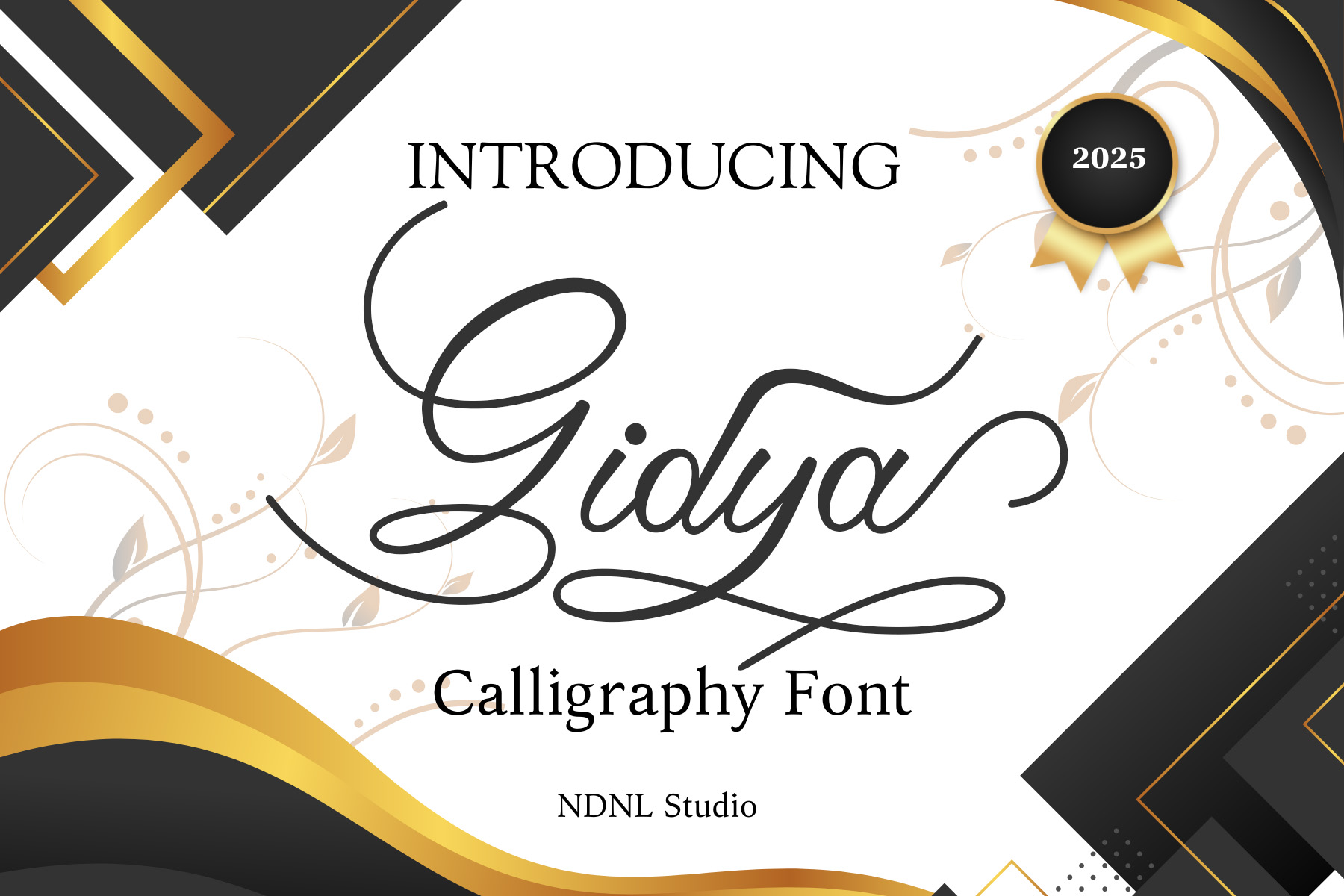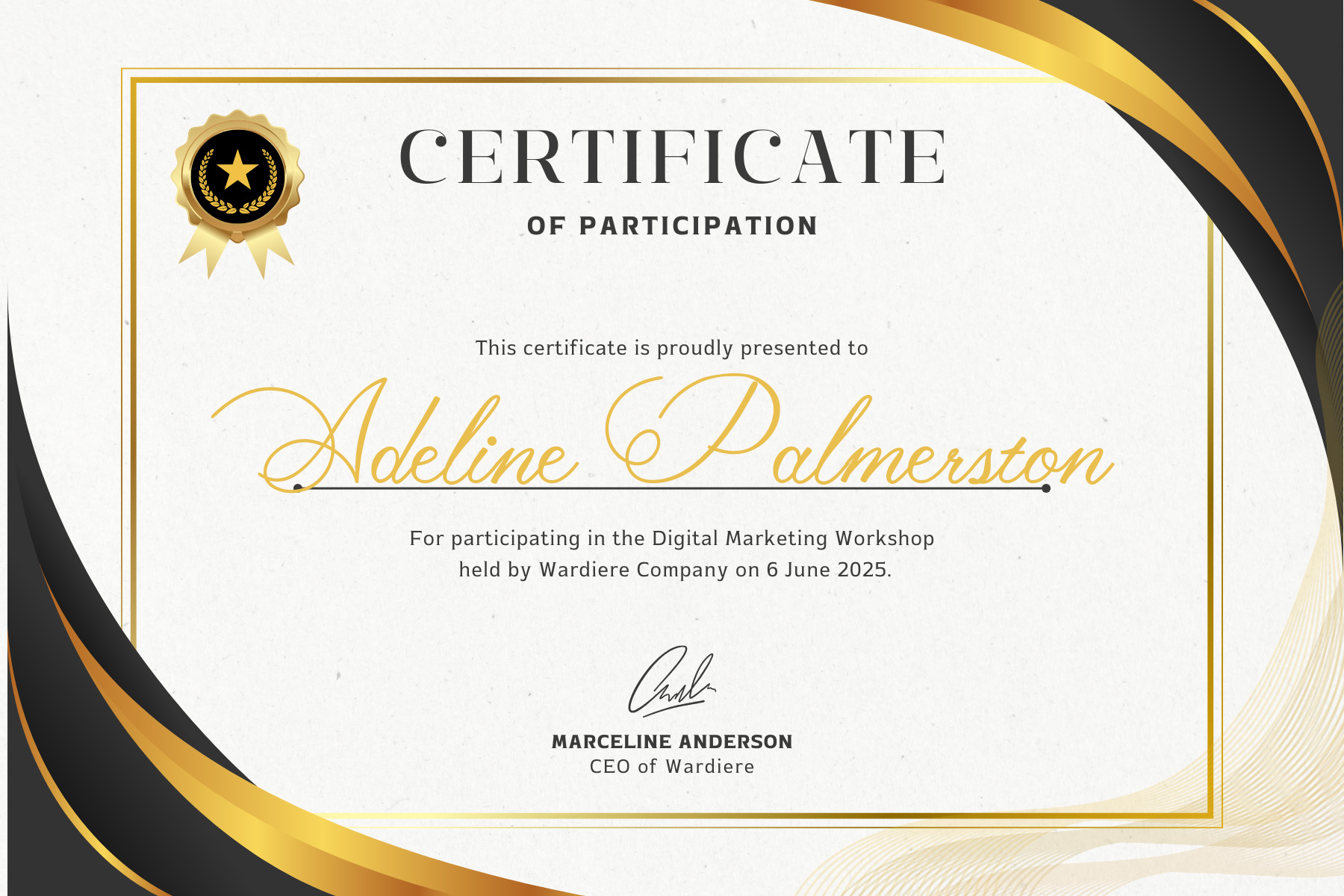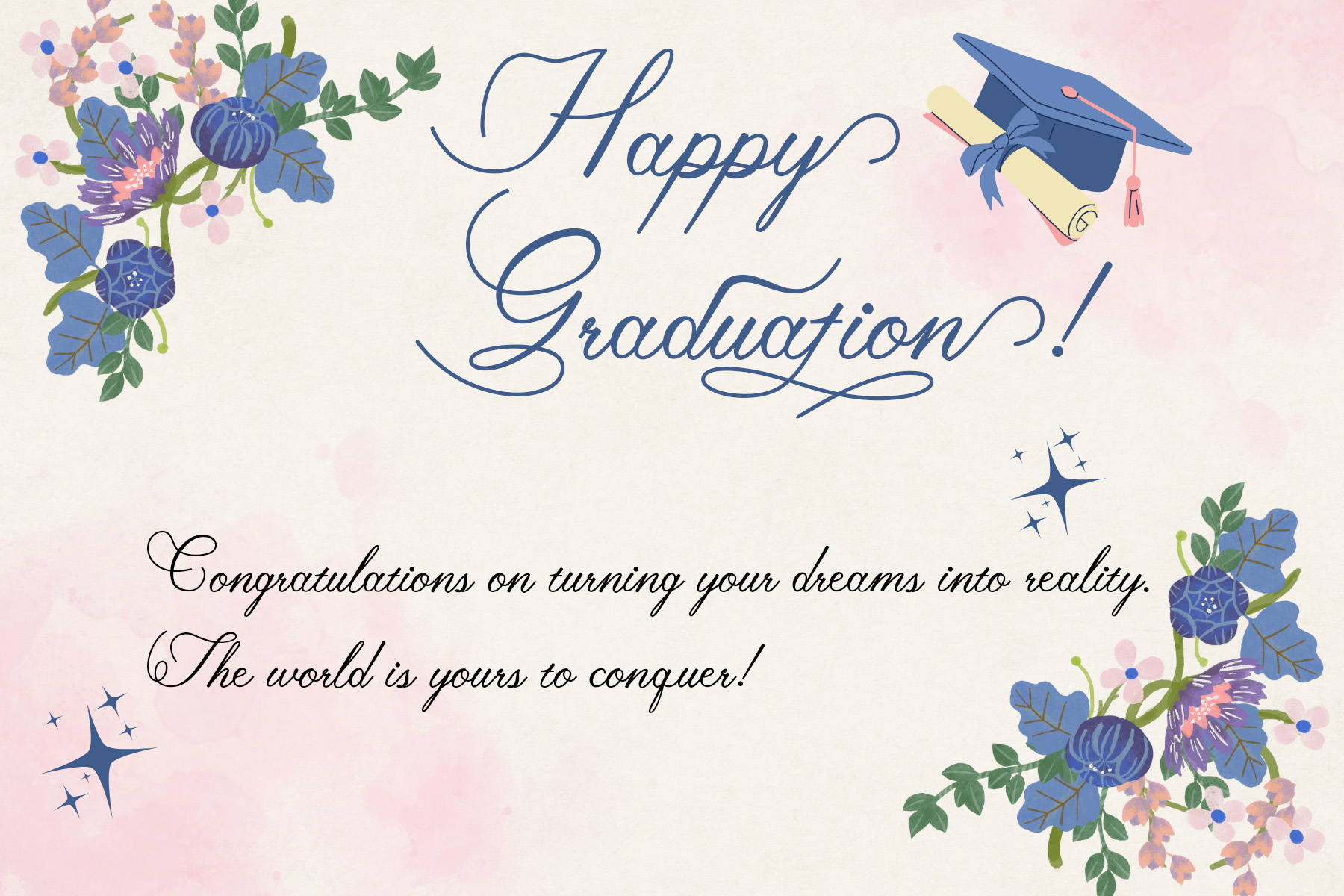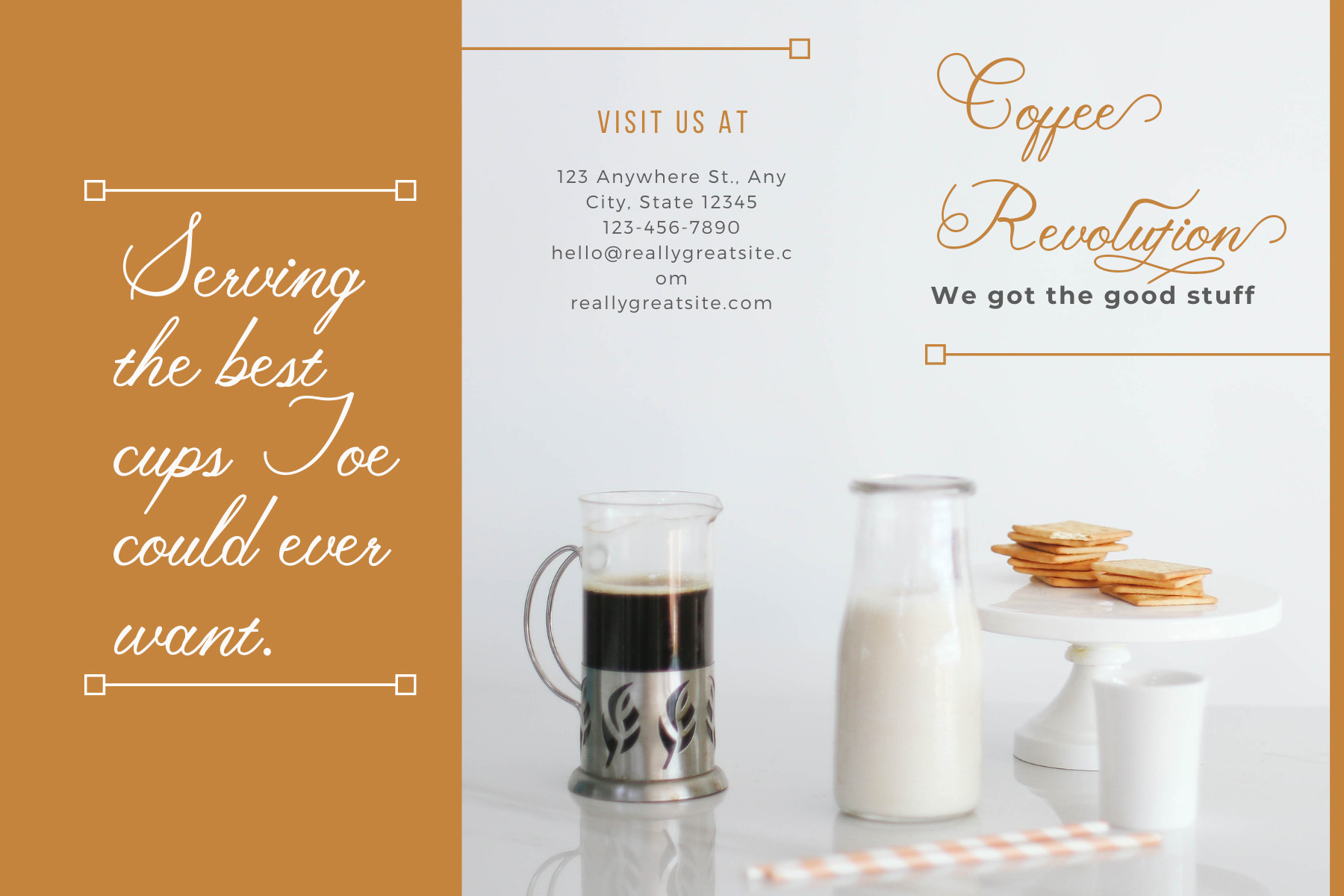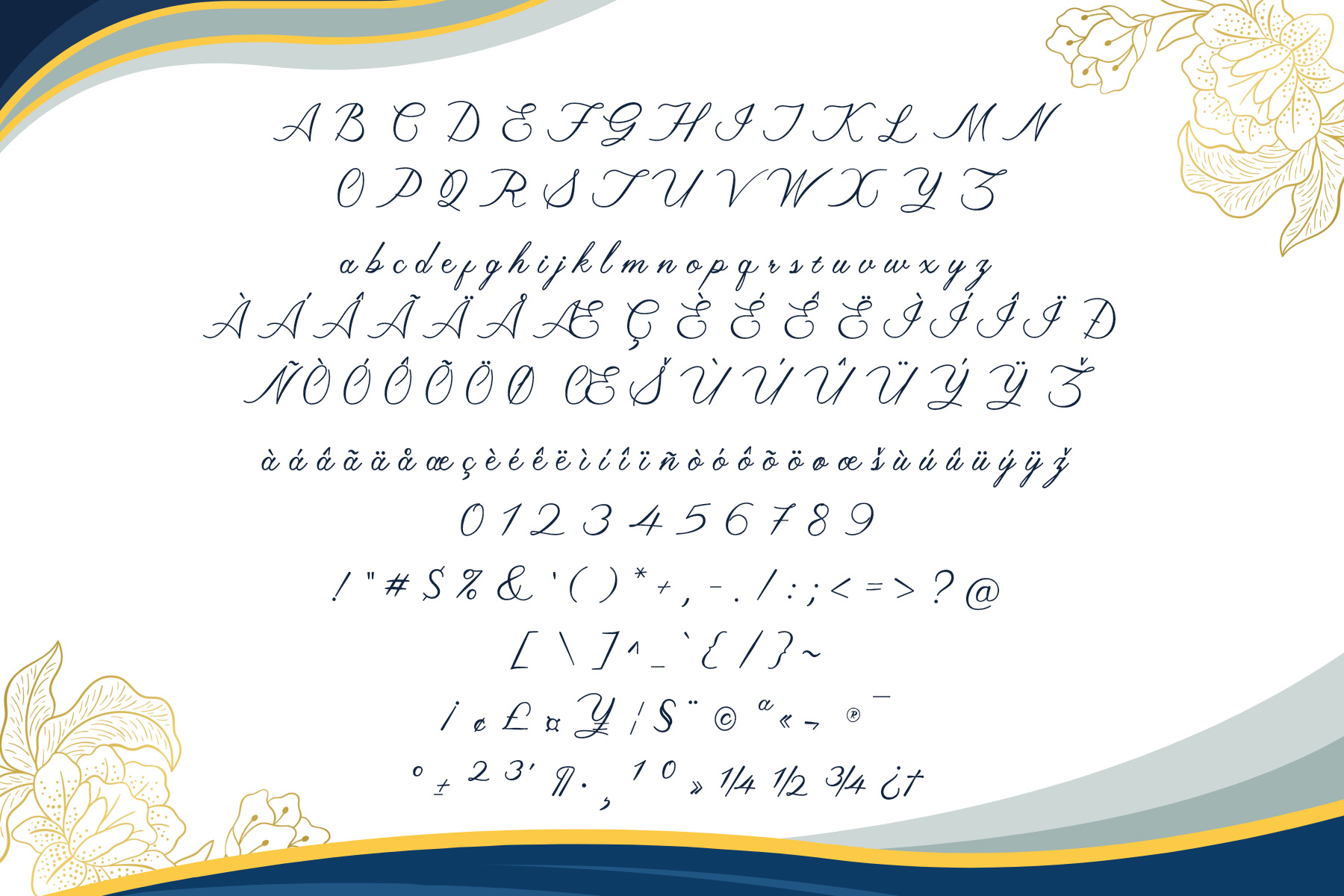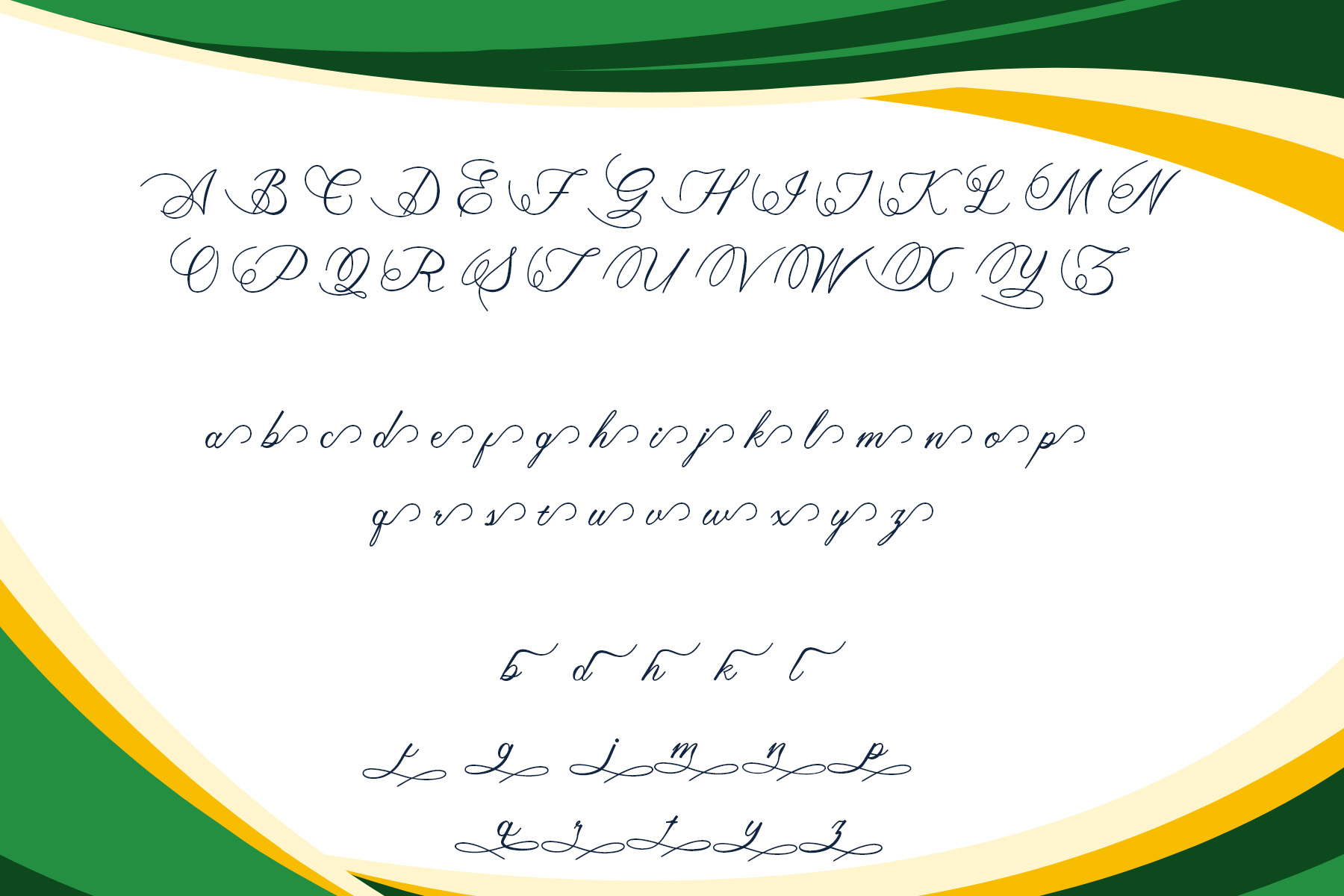
Introducing Gidya!
Gidya is a calligraphy font designed with inspiration from the timeless beauty of handwritten lettering. Every curve and stroke carries an elegant rhythm, giving your design a balance between artistry and sophistication. With its flowing swashes and stylish characters, Gidya works beautifully in wedding invitations, love letters, luxury branding, product packaging, and editorial design.
More than just a typeface, Gidya is a creative tool that helps your message shine with romance, elegance, and a personal handwritten charm.